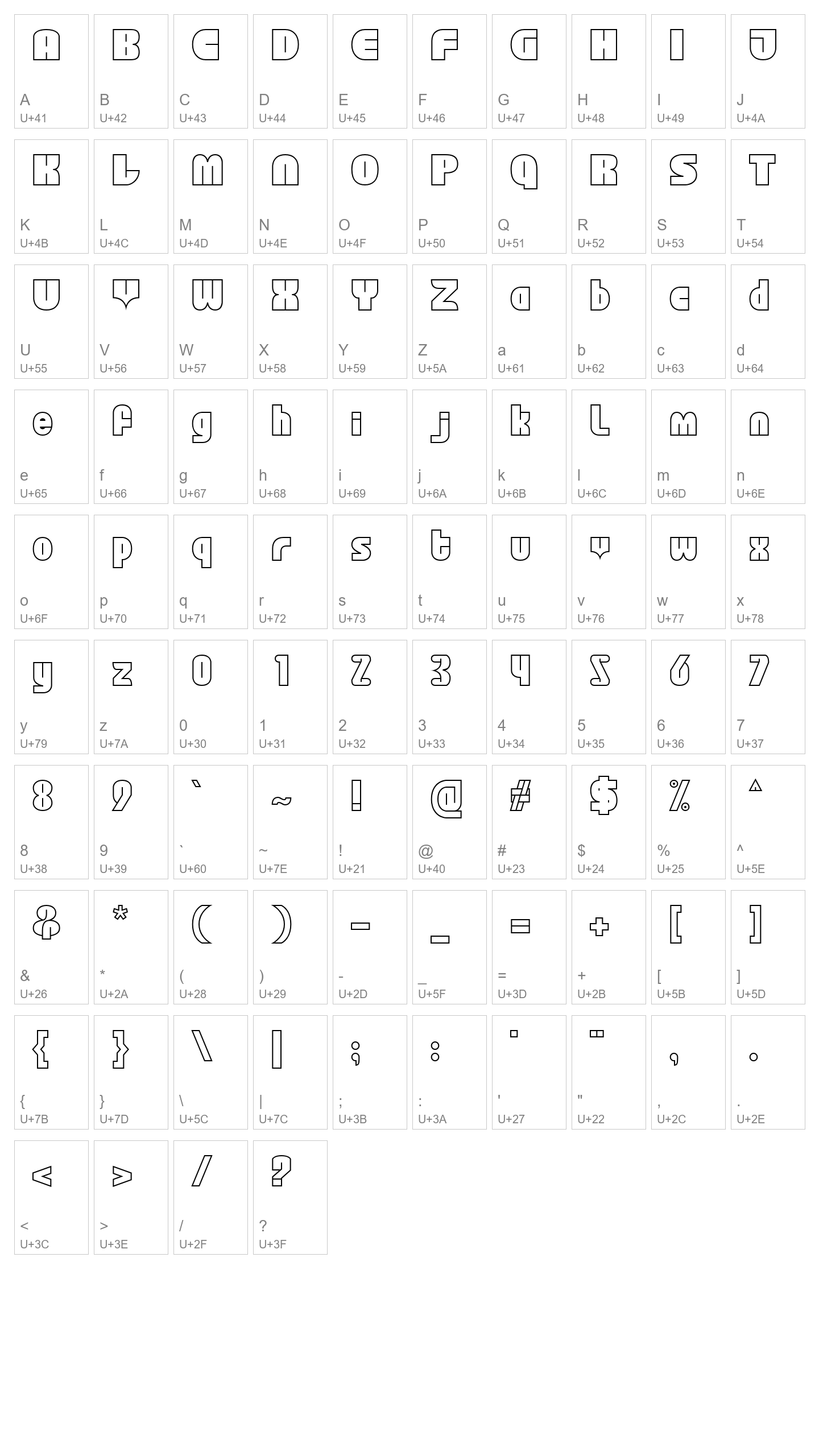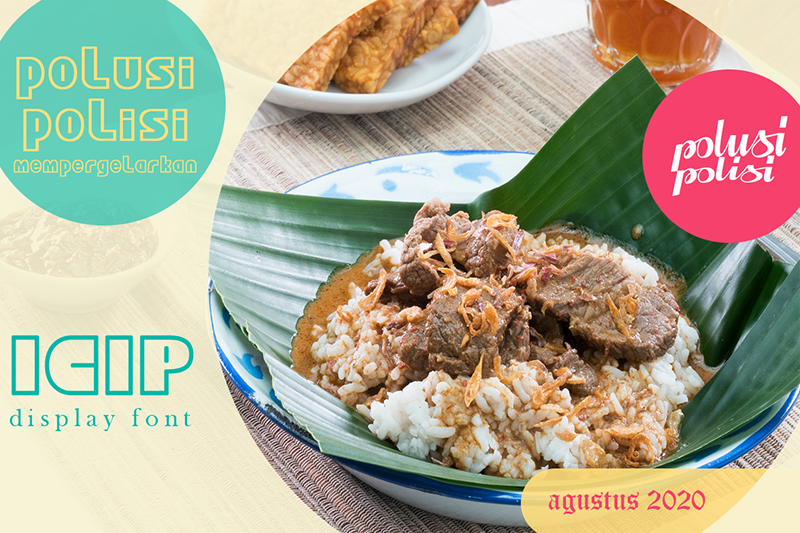
Icip
Hello, design enthusiasts. Introduce, this is my newest font, named Icip.
Icip is a display font that emphasizes curved outlines, has a sleek and fun impression.
Icip is perfect for use on coloring books, decorations, paper crafts, stickers, tote bags, tumblers, etc.
- Uppercase
- Lowercase
- Numbers
- Punctuation